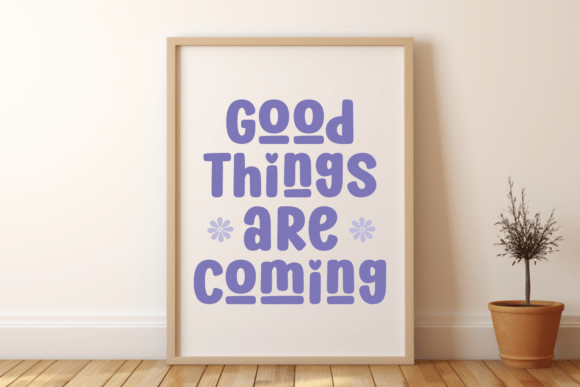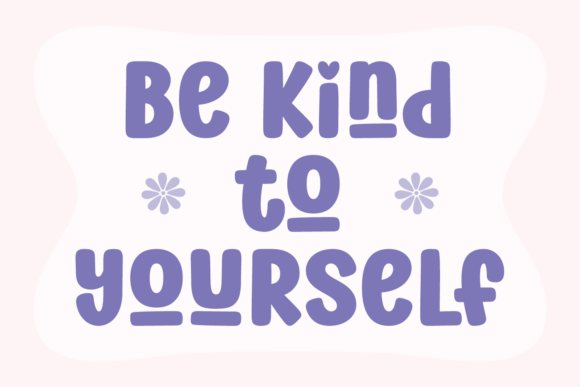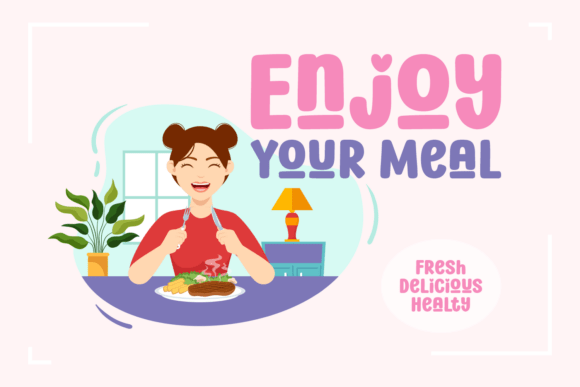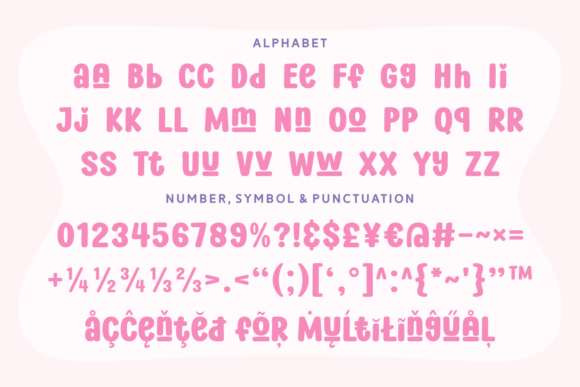
Introduction to Playful Charming Font
Playful Charming is an irresistibly sweet display font bursting with joy and personality.
With its soft curves and bubbly letterforms, it brings a cheerful, friendly vibe to any design it touches Perfect for eye-catching titles, adorable stickers, fun banners, and playful merchandise like T-shirts, mugs, tote bags, greeting cards, and social media graphics, this font is made to spread smiles everywhere.